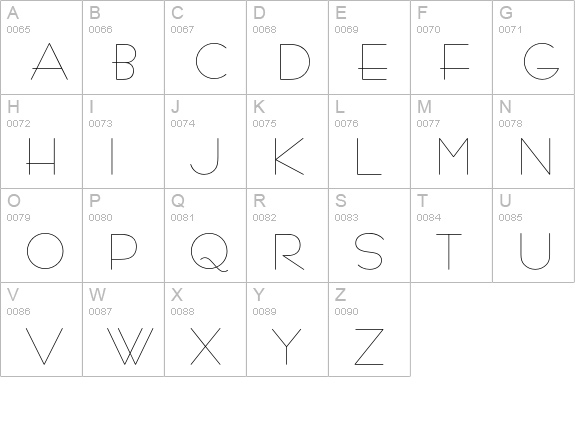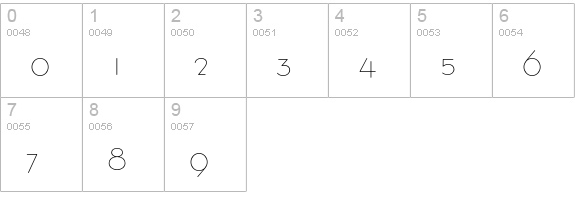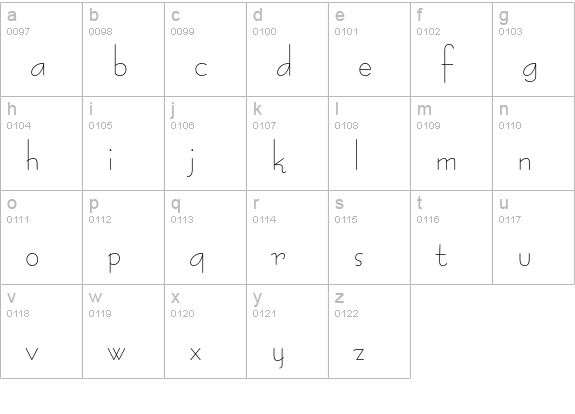
Bernhard Fashion Font Details
Introducing Bernhard Fashion font, a sleek and sophisticated typeface that exudes elegance and style. With its clean lines and modern aesthetic, Bernhard Fashion is perfect for adding a touch of luxury to any design project. This versatile font can be used for a variety of purposes, from branding to packaging to editorial design. What sets Bernhard Fashion apart is not only its timeless design, but also the fact that it is available for free download at FontsMarket.com. That's right, you can elevate your designs with this stunning font without spending a dime. So why wait? Download Bernhard Fashion today and take your projects to the next level with this exquisite typeface.